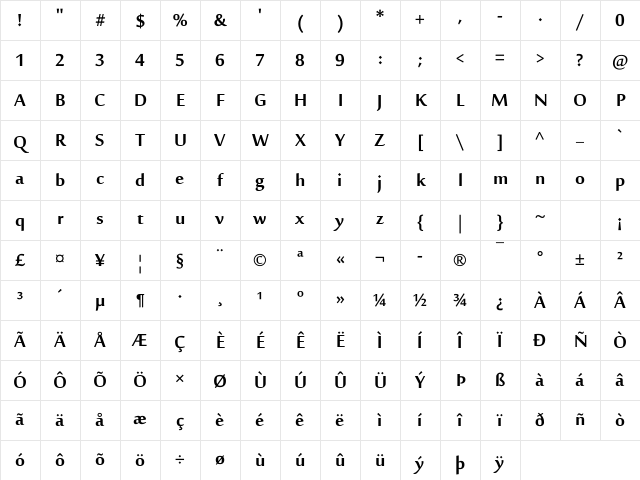
Majalla UI Bold
Foundry: Mamoun Sakkal, Sakkal Design
Designer: Mamoun Sakkal, Sakkal Design and Steve Matteson, Ascender Corp.
Design Context for Majalla UI
Majalla UI is a composed and adaptable typeface that performs quietly and consistently across a wide range of design contexts. Its bold stroke weight gives it real presence on the page.
Who designed the Majalla UI Bold font?